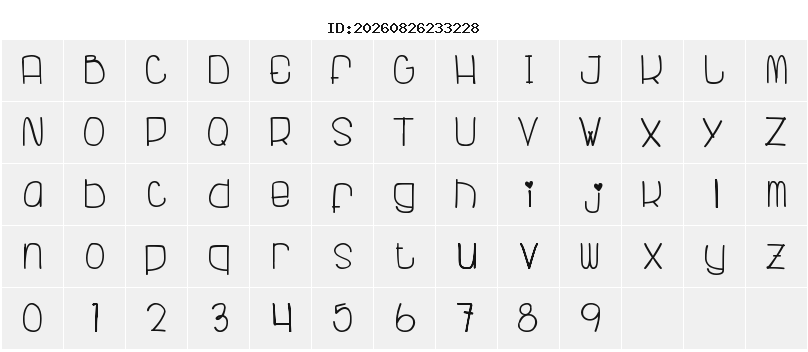
{Tubagus Rangga Efarasti} Preview
• Font Name: {Tubagus Rangga Efarasti}
• Full Font Name: {Tubagus Rangga Efarasti}
About {Tubagus Rangga Efarasti}.ttf
{Tubagus Rangga Efarasti}.ttf is a modern, elegant sans-serif font designed for ultimate readability and visual harmony. Perfect for branding, headlines, web design, and print materials.